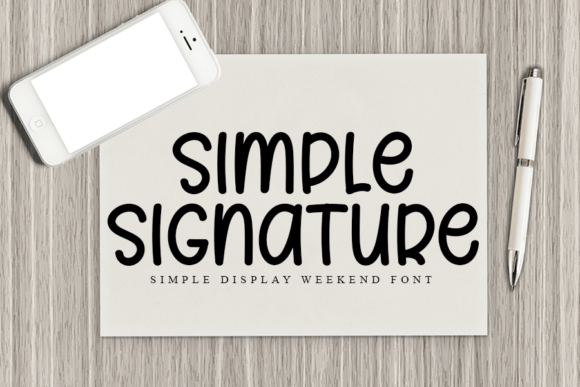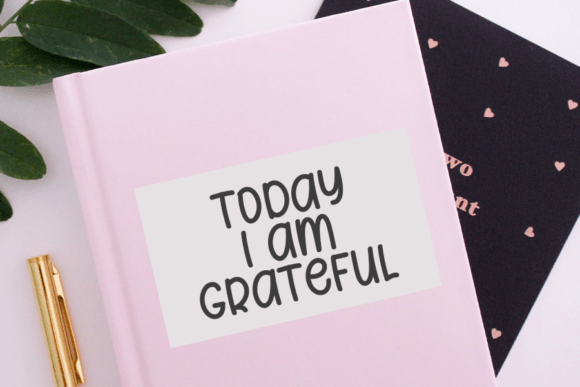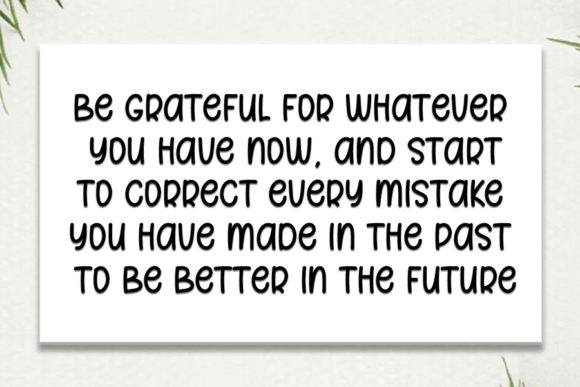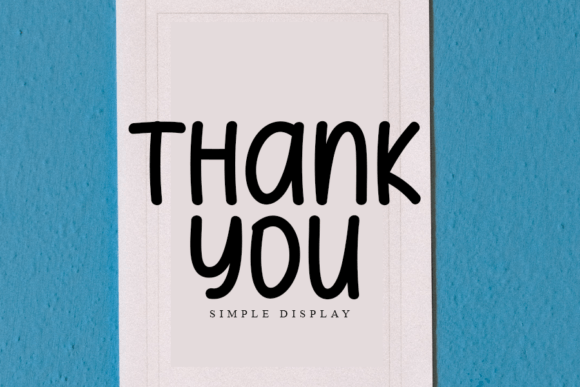
Introducing Daily Weekend Font: The Ultimate Modern Display Font
Are you tired of using the same old fonts for your designs, crafts, and digital projects? Look no further! Daily Weekend Font is a cool and modern display font that’s about to become your new go-to font for all occasions. In this article, we’ll dive into the features, benefits, and uses of Daily Weekend Font, and explore why it’s a must-have for designers, crafters, and digital enthusiasts.
What is Daily Weekend Font?
Daily Weekend Font is a stylish and contemporary display font designed to make a statement. Its unique and elegant lettering style makes it perfect for a wide range of applications, from digital designs and presentations to crafts, greeting cards, and more. Whether you’re a professional designer or a DIY enthusiast, this font is sure to elevate your projects and give them a fresh, modern look.
Key Features of Daily Weekend Font
- Modern and Cool Design: Daily Weekend Font boasts a sleek and modern design that’s sure to turn heads. Its clean lines, elegant curves, and unique lettering style make it perfect for creating stunning visual content.
- Versatile and Multi-Purpose: This font is incredibly versatile and can be used for a wide range of projects, including digital designs, presentations, crafts, greeting cards, and more.
- Easy to Read and Understand: Despite its modern and stylish design, Daily Weekend Font is easy to read and understand, making it perfect for use in body text, headings, and titles.
Benefits of Using Daily Weekend Font
So, why should you choose Daily Weekend Font for your next project? Here are just a few benefits of using this amazing font:
- Adds a Touch of Elegance and Sophistication: Daily Weekend Font adds a touch of elegance and sophistication to any project, making it perfect for creating stunning visual content.
- Helps to Stand Out from the Crowd: With its unique and modern design, Daily Weekend Font helps you stand out from the crowd and create memorable visual content that grabs attention.
- Saves Time and Effort: Daily Weekend Font is easy to use and customize, saving you time and effort in the design process.
- Perfect for Branding and Marketing Materials: This font is perfect for creating branding and marketing materials, including logos, brochures, and social media graphics.
Uses of Daily Weekend Font
So, what can you use Daily Weekend Font for? The possibilities are endless! Here are just a few ideas to get you started:
- Digital Designs: Use Daily Weekend Font to create stunning digital designs, including social media graphics, blog posts, and website headers.
- Crafts and DIY Projects: Add a touch of elegance and sophistication to your crafts and DIY projects, including greeting cards, scrapbooking, and paper crafting.
- Presentations and PowerPoint: Use Daily Weekend Font to create engaging and memorable presentations, including PowerPoint slides and keynote speeches.
- Greeting Cards and Invitations: Create beautiful and unique greeting cards and invitations for special occasions, including birthdays, weddings, and holidays.
In conclusion, Daily Weekend Font is a cool and modern display font that’s perfect for designers, crafters, and digital enthusiasts. Its unique and elegant design, versatility, and ease of use make it a must-have for any project. Whether you’re creating digital designs, crafts, presentations, or greeting cards, Daily Weekend Font is sure to elevate your projects and give them a fresh, modern look. So why wait? Download Daily Weekend Font today and start creating stunning visual content that grabs attention!